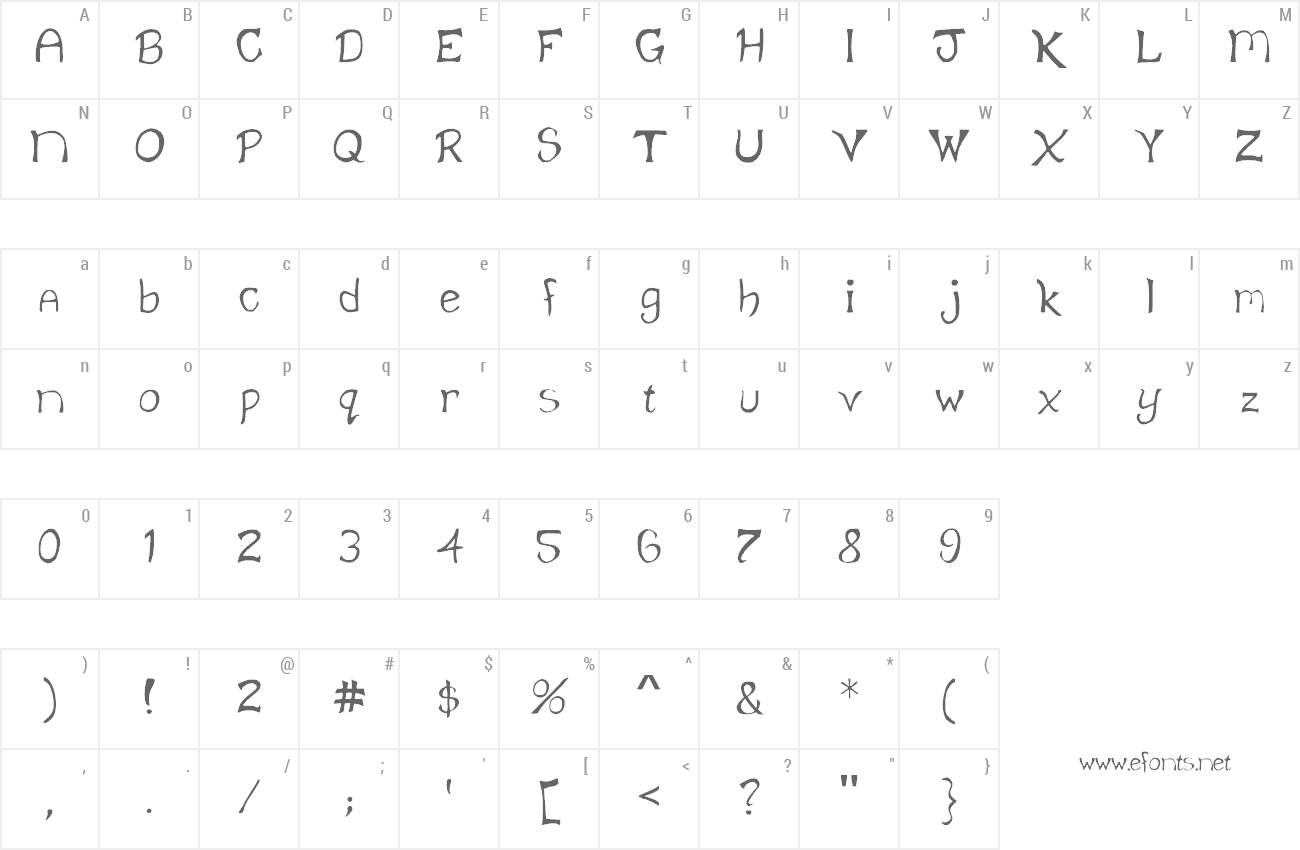
| Font name: | Klaine |
| Author: | k8y411 |
| Took the handful of letter's Kurt drew in Silly Love Songs and created a font from it. Please credit me if you use it. Enjoy <3 |